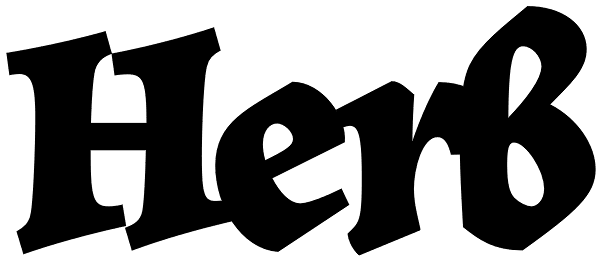
JAF Herb
Herb is based on 16th century cursive broken scripts and printing types. Originally designed by Tim Ahrens in the MA Typeface Design course at the University of Reading, it was further refined and extended in 2010. The idea for Herb was to develop a...